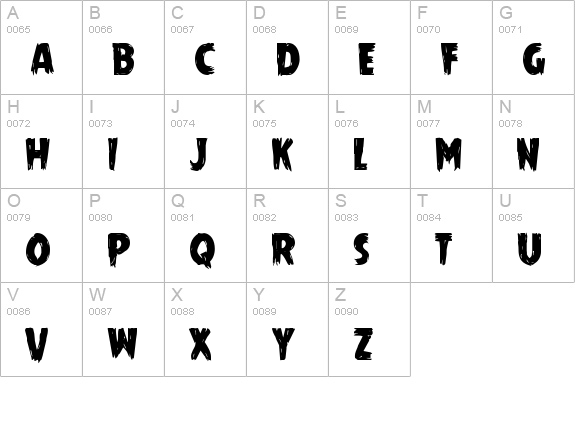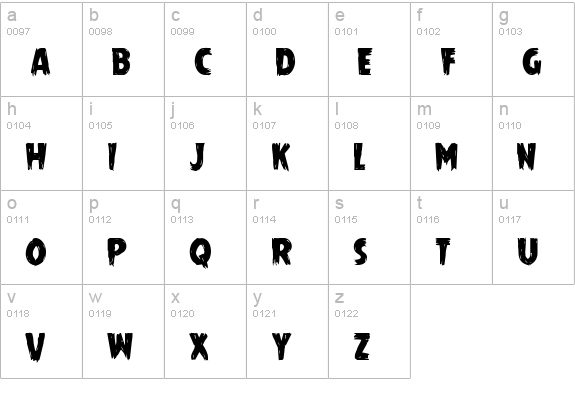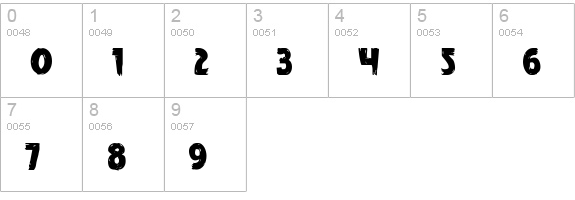
Mrs. Monster font is a delightful and quirky typeface that brings a touch of playfulness to any design project. Its unique and eye-catching letterforms are sure to grab attention and add a fun element to your work. Whether you're creating posters, invitations, or social media graphics, Mrs. Monster font is the perfect choice for adding a whimsical touch.